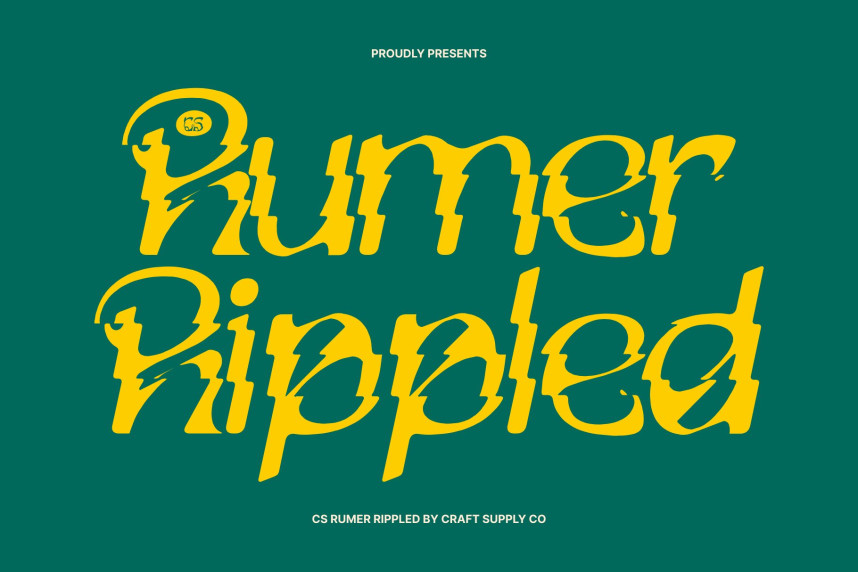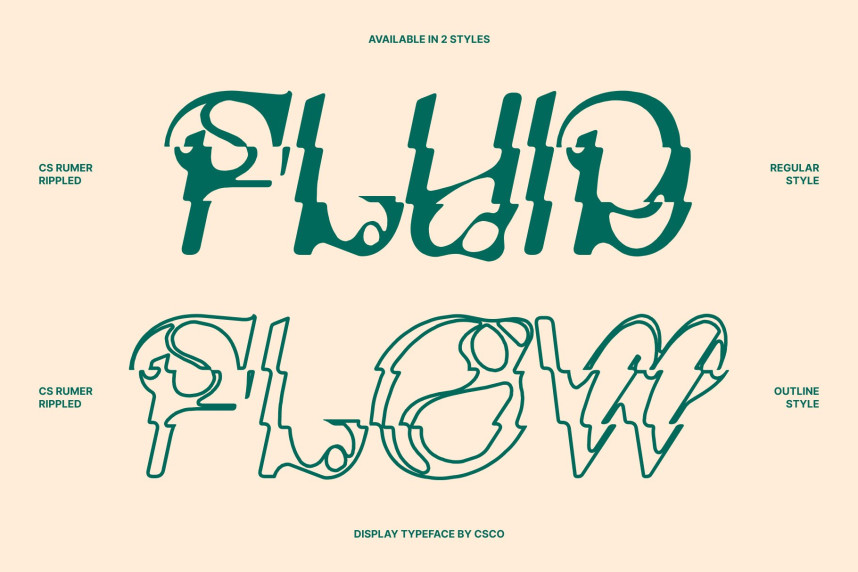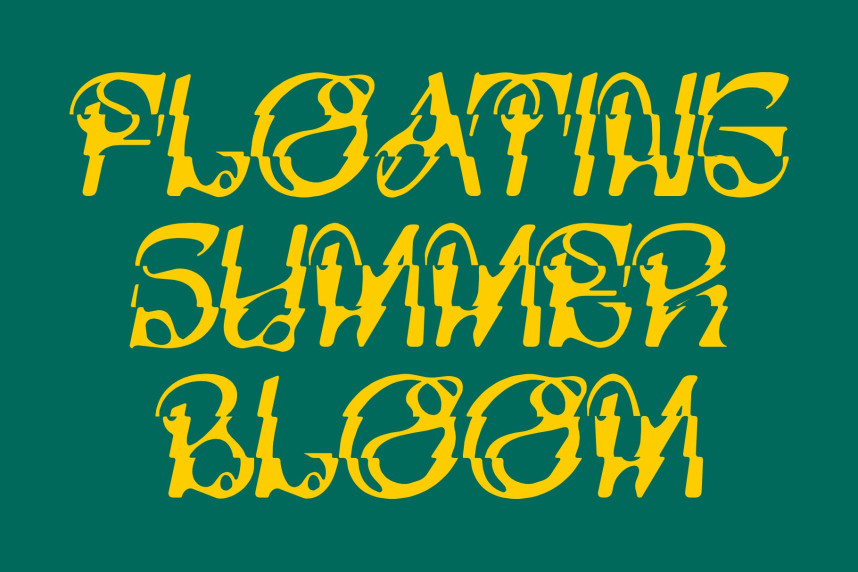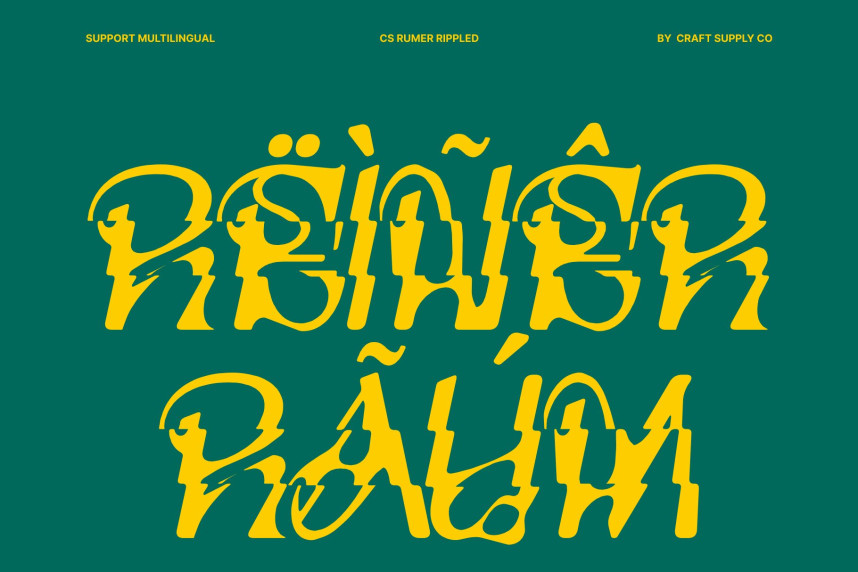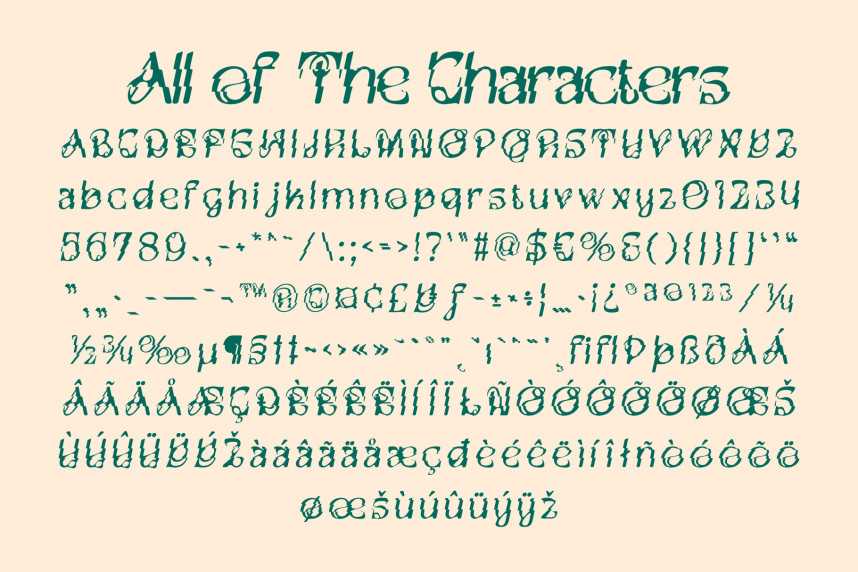
CS Rumer Rippled Font
CS Rumer Rippled Font – Modern Sans Serif Font: Where Art Nouveau Elegance Meets Fluid Wave Distortion
Flowing Art Nouveau Forms with Organic Beauty
This is a modern sans serif display font that blends the graceful beauty of Art Nouveau with an innovative melted concept. Inspired by the flowing lines and natural elegance of the iconic artistic movement, its curved forms and organic movement create a sophisticated visual identity that feels expressive, artistic, and full of life.